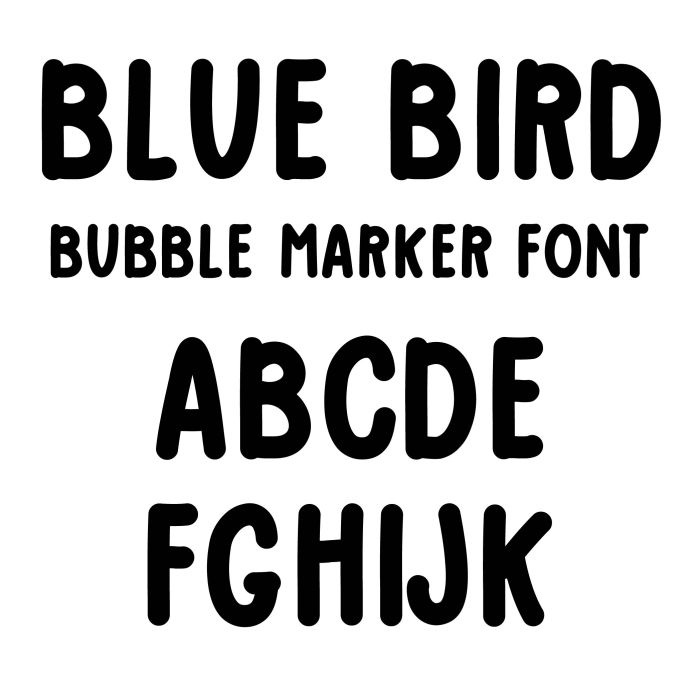
A cute bubble font in playful all caps handwritten marker style for Christmas gifts, holiday cards, decoration, birthday, signs, planners, notes, monograms, and personalization projects.